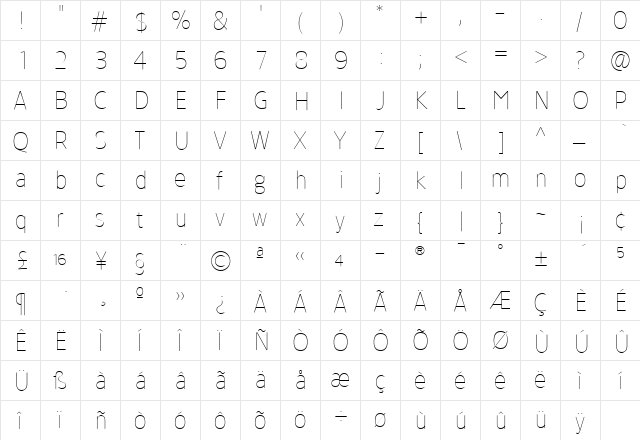
TFForever Thin
| Foundry | J. Treacy, Treacyfaces,Inc |
| Year | 1988 |
Design Context for TFForever Typeface
TFForever offers clean, dependable letterforms without strong stylistic allegiance, making it a practical choice for designers who need flexibility. The delicate stroke weight brings airiness and refinement to layouts.